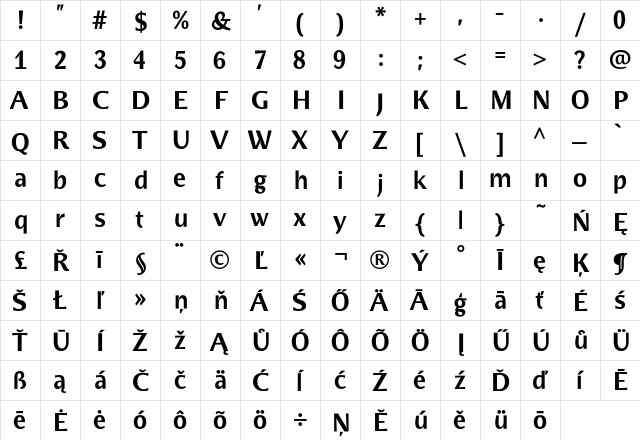
BradloSansCE Bold
Design Context for BradloSansCE Typeface
BradloSansCE is a composed and adaptable typeface that performs quietly and consistently across a wide range of design contexts. Its bold stroke weight gives it real presence on the page.